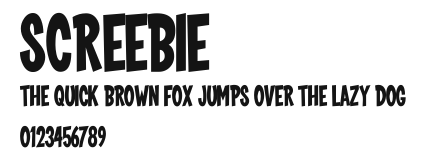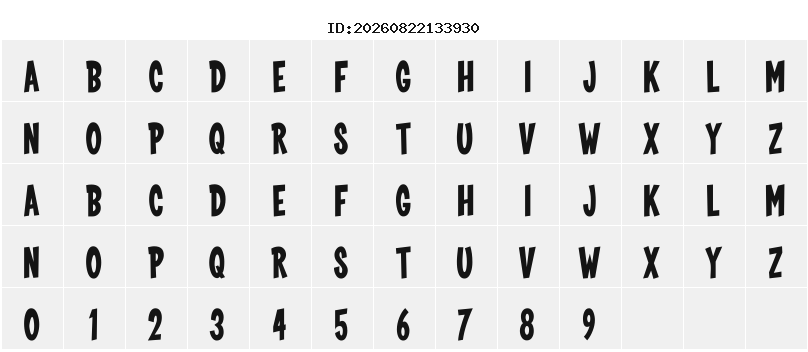
Screebie Preview
• Font Name: Screebie
• Full Font Name: Screebie
About Screebie.ttf
Screebie.ttf is a modern, elegant sans-serif font designed for ultimate readability and visual harmony. Perfect for branding, headlines, web design, and print materials.